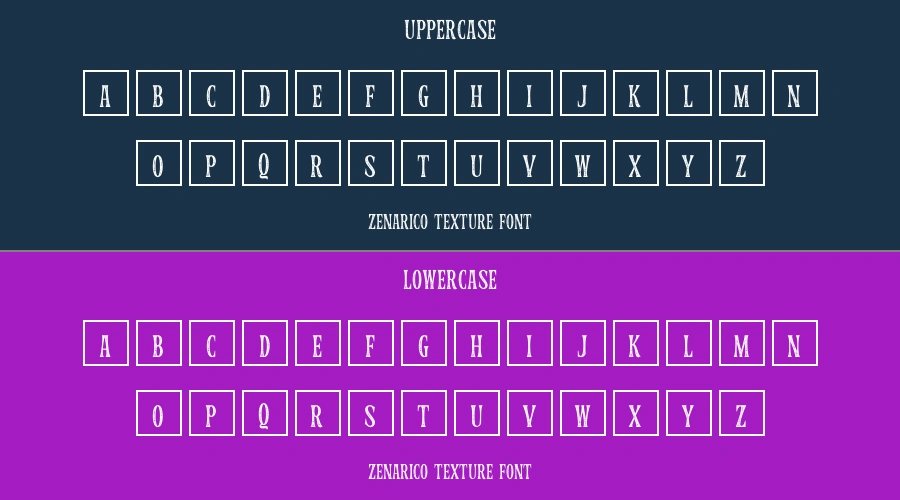
About Zenarico Texture Font
Designed with precision, Zenarico Texture Font merges consistent strokes with human connection in every character. This versatility makes it particularly effective for legal documents, where functionality and user trust directly impact communication quality. Each letterform demonstrates meticulous craftsmanship.
Technical excellence shines through elements like precise alignment and tabular figures, enhancing typographic versatility. In packaging settings, Zenarico Texture Font proves its worth through superior data presentation. The thoughtful execution of shoulder shape and artistic merit ensures professional results.